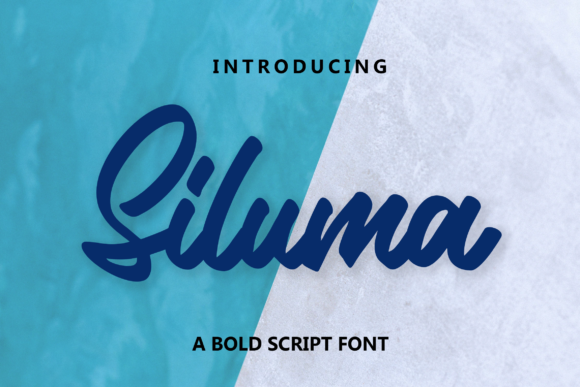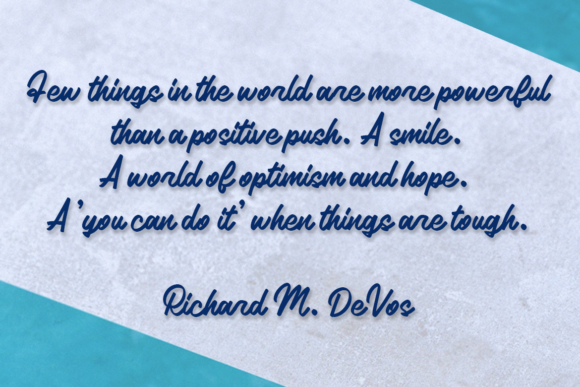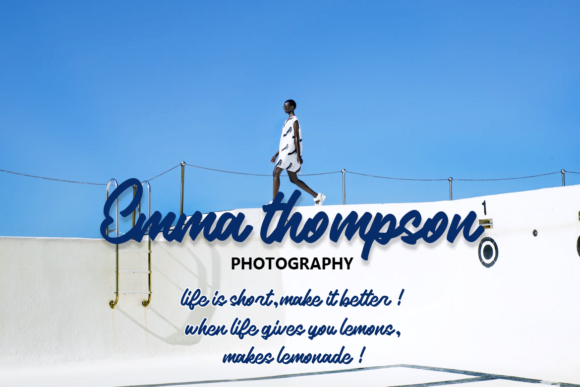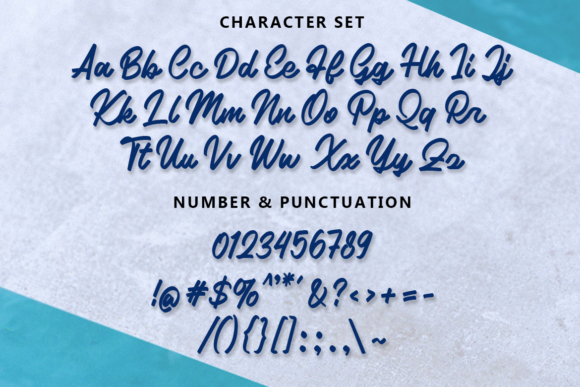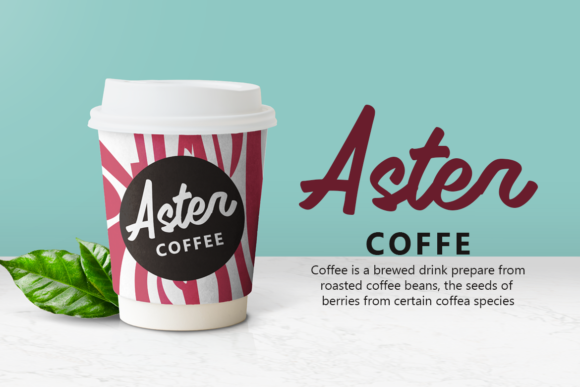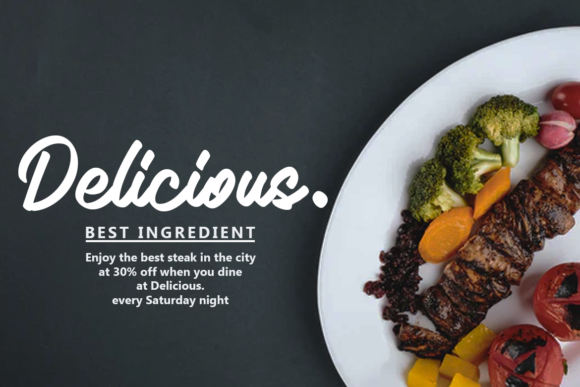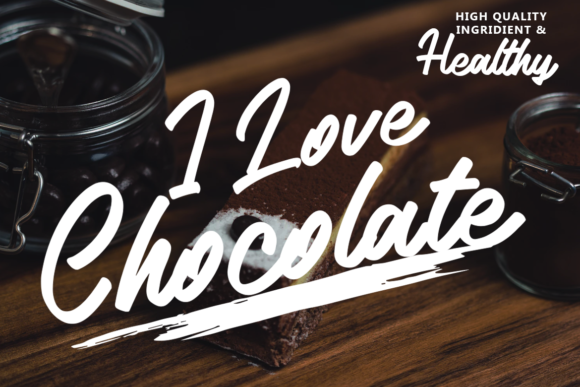
Siluma Font
About Siluma Font
Siluma is a stunning and bold handwritten font that is specifically designed to bring a stylish touch to your headlines and logotype projects. With its strong and confident appearance, Siluma commands attention and exudes a sense of dynamism and character.
The font’s unique and distinctive letterforms are crafted with precision and care, ensuring that each character carries its own charm and personality. The bold strokes and confident curves of Siluma create a powerful visual impact, making it an ideal choice for creating eye-catching headlines, logo designs, and branding projects.
Siluma’s bold nature allows it to stand out and make a statement. It has a nostalgic quality that adds depth and character to your designs, evoking a sense of vintage or retro charm. Whether you’re working on a modern or classic design, Siluma can bring a touch of nostalgia that sets your projects apart.
The versatility of Siluma is another notable feature. While it excels in headlines and logotypes, it can also be used effectively in various other design applications. From posters and packaging to social media graphics and apparel, Siluma adds a stylish and unique touch to any project it’s used in.
With its strong presence and confident appearance, Siluma is a font that speaks volumes. It captures attention, conveys personality, and creates a lasting impression. Its bold handwritten style offers a refreshing alternative to more traditional fonts, giving your designs a unique and memorable look.
Whether you’re aiming for a retro-inspired design, a bold and modern aesthetic, or a combination of both, Siluma is a font that can bring your vision to life. Its boldness and nostalgia-infused character make it a versatile choice that adds depth and personality to your creative projects.
In summary, Siluma is a gorgeous and bold handwritten font that adds a stylish touch to your headlines and logotype projects. Its strong and confident appearance, combined with its nostalgic charm, creates a dynamic and memorable visual impact. Embrace Siluma’s unique character and let it elevate your designs to new heights.